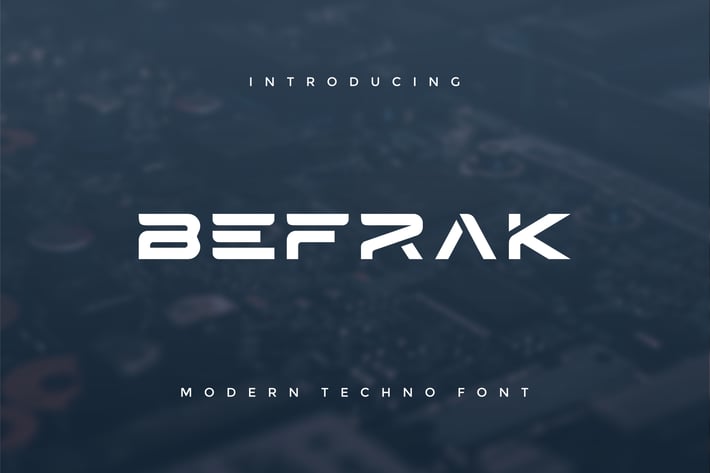
Befrak - Modern Techno Font
Introducing our new product Befrak - Modern Font
Befrak is a bold, modern display font with playful flair, ideal for attention-grabbing headlines, logos, and diverse design projects. Versatile and readable in both digital and print, Befrak adds a dynamic touch to your message.